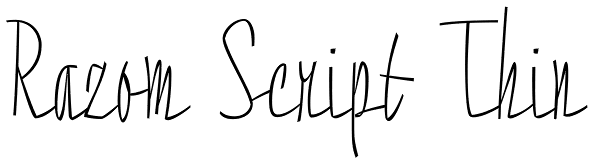
Razom Script
Razom Script is a typeface with deep roots in pointed brush calligraphy that takes advantage of current font technology to go beyond handwriting and reach new limits. A successful blend between printed and handwritten letterforms is visible when...